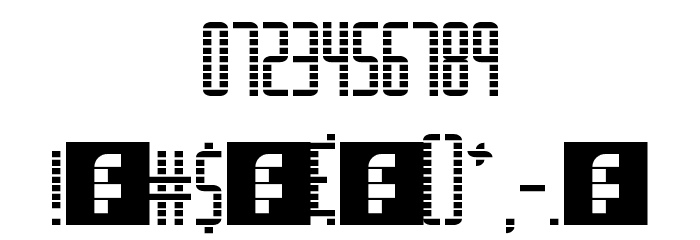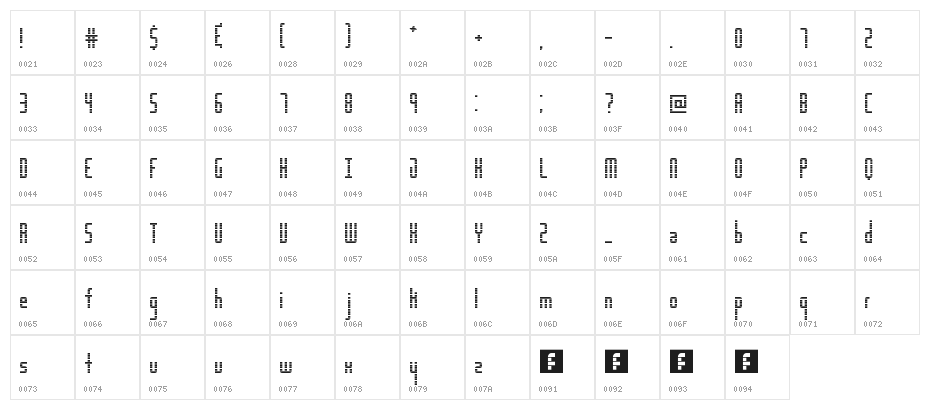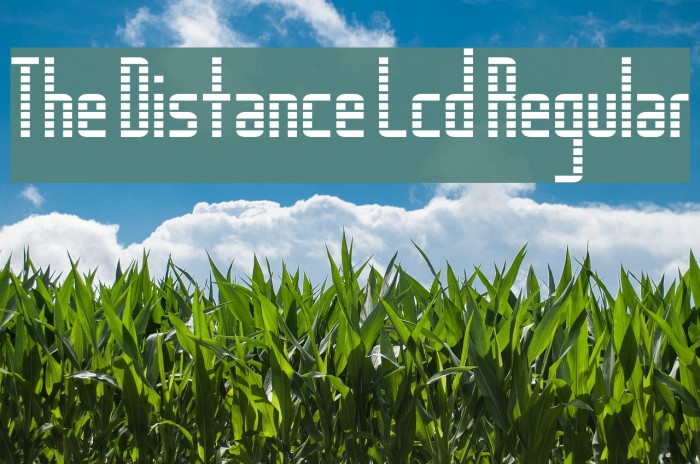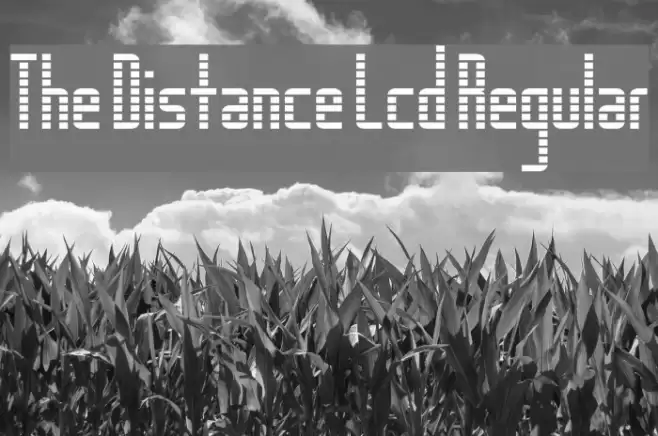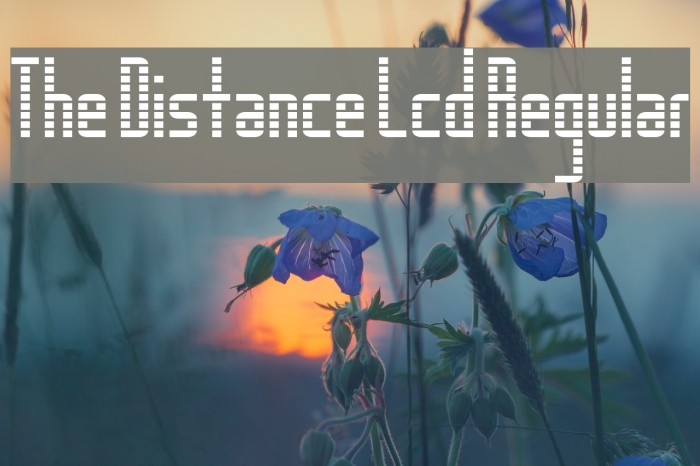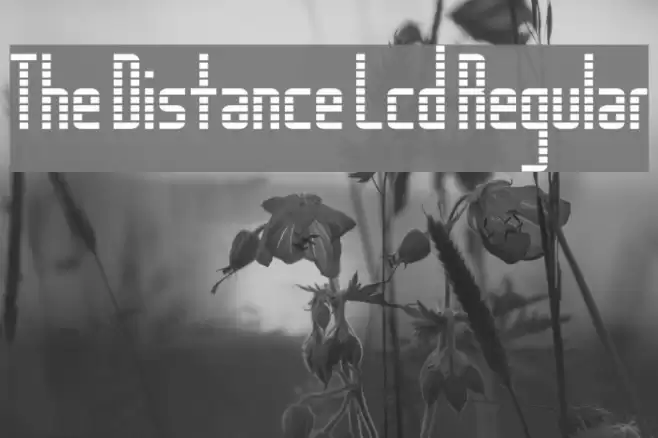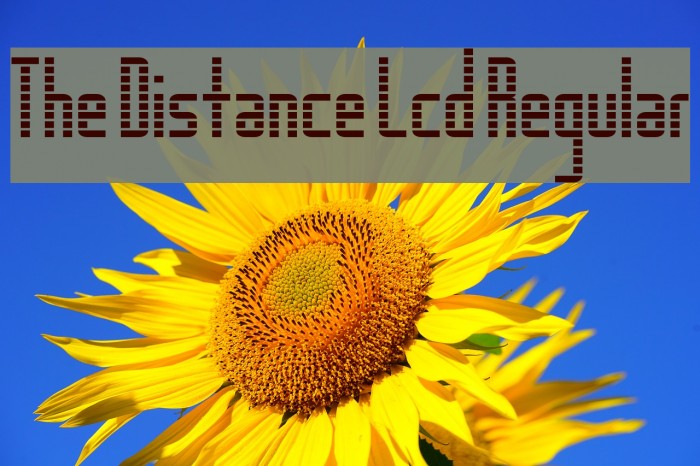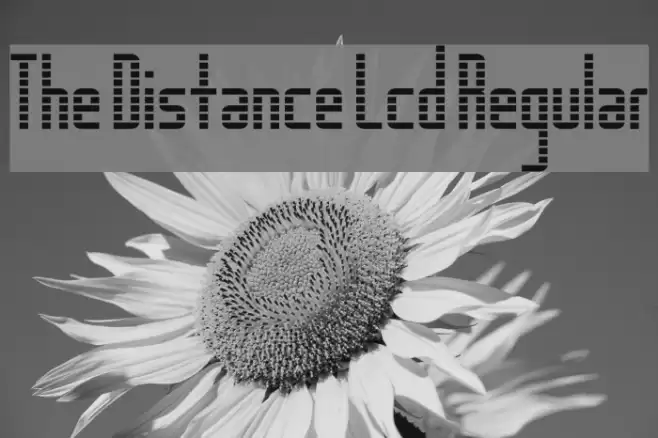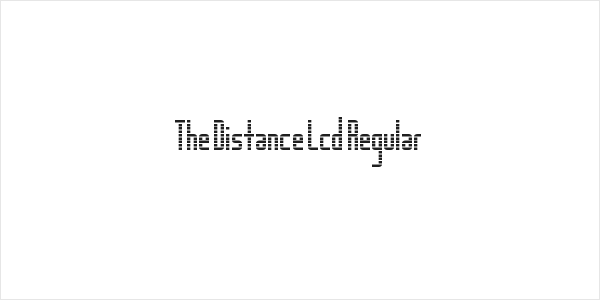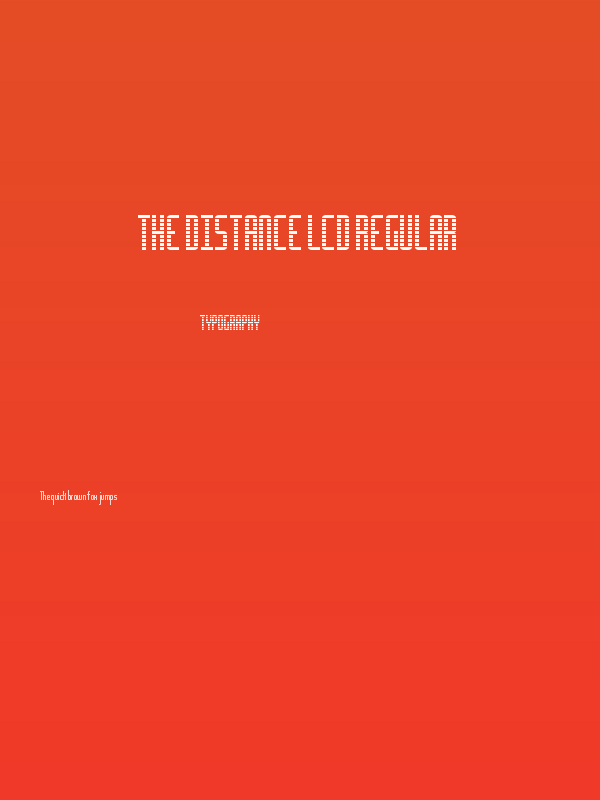
The Distance Lcd Regular Font
The Distance Lcd Regular Description
This font features a distinct digital aesthetic reminiscent of old LCD displays. Each character is composed of segmented lines that mimic the pixelated look of early electronic screens. The uppercase and lowercase letters maintain a consistent height, contributing to a uniform appearance. The numerals and special characters follow the same segmented style, enhancing the cohesive digital theme. This font is particularly striking due to its geometric precision and the way it captures the essence of retro technology. Its unique structure makes it ideal for projects that aim to evoke nostalgia or a futuristic digital vibe.